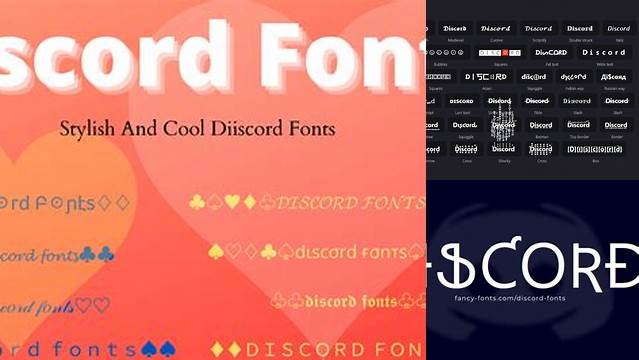
Discord Fonts: Cool Text Styles For Your Server
Hey guys! Ever wanted to spice up your Discord server with some unique fonts? You've come to the right place! Discord, while awesome, doesn't exactly give you a ton of built-in font options. But don't worry, there are plenty of ways to make your text stand out. Let’s dive into the world of Discord fonts and how you can use them to make your server truly shine.
1. Understanding Discord's Font Limitations
Discord’s native text formatting is pretty basic. You've got your bold, italics, underlines, and strikethroughs, which are super useful, but sometimes you just need that extra oomph. So, what are the limits? Discord uses a standard font across its platform, mainly for readability and consistency. This means you can't directly change the font in the traditional sense, like in a word processor. But, there’s a workaround – using Unicode characters and font generators!
When we talk about Discord fonts, we're really talking about text transformations that use special characters. These characters mimic different font styles, allowing you to create the illusion of various fonts without actually changing the underlying font Discord uses. This is where font generators come in handy. They take your regular text and convert it into these special character sets. Knowing this limitation is the first step in understanding how to make your Discord text pop. You’re not actually changing the system font, but you're getting creative with Unicode to achieve the desired effect. Think of it like a magic trick for your text!
2. Exploring Online Discord Font Generators
Alright, let's get to the fun part! Online Discord font generators are your best friends here. These tools are super easy to use. You just type in your text, and they generate a bunch of different font styles for you to copy and paste into Discord. Sites like LingoJam, Cool Fonts, and Text Generator are popular choices. They offer a wide array of styles, from bold and italic to bubble letters and fancy scripts. Each generator works a bit differently, but the core concept is the same: convert your plain text into stylized Unicode characters.
Using these generators is a breeze. You’ll usually see a text box where you can input your message. Below that, the generator will display your text in various Discord font styles. You can then simply copy the style you like and paste it directly into your Discord chat or server description. It's important to note that while these fonts look cool, they are essentially different characters, not actual font changes. This means they might not be supported everywhere, but within Discord, they generally work perfectly. So, go ahead and experiment with different generators and styles to find what suits your server's vibe!
3. Top Websites for Unique Discord Fonts
So, where do you find these magical font generators? There are tons of websites out there, but a few stand out for their variety and ease of use. LingoJam is a classic, offering a wide selection of fonts and a simple interface. Cool Fonts is another excellent option, with a user-friendly design and a bunch of unique styles. Text Generator is great for creating eye-catching text with various symbols and characters. These sites are your go-to resources for transforming your Discord fonts.
Each of these websites has its own strengths. LingoJam is known for its real-time conversion, showing you the Discord font in various styles as you type. Cool Fonts is praised for its clean layout and diverse font options. Text Generator excels at creating more elaborate text designs with symbols and decorative elements. It’s a good idea to try out a few of these sites to see which one you prefer. You might even bookmark a couple for different occasions! Remember, the key is to find a generator that offers the styles you love and is easy for you to use. Happy font hunting!
4. How to Use Font Generators for Discord
Okay, let's get down to the nitty-gritty. Using a Discord font generator is super simple, but here’s a step-by-step guide to make sure you nail it every time. First, head over to your chosen font generator website (like LingoJam, Cool Fonts, or Text Generator). You'll usually find a text box at the top of the page. Type the text you want to transform into this box. As you type, the generator will display your text in various font styles below.
Scroll through the options and find a Discord font style that catches your eye. Once you’ve found the perfect style, simply click the “copy” button next to it (if there is one) or manually select and copy the text. Now, head over to Discord and paste the text into your desired chat, channel, or server description. That’s it! Your stylish new font will now be visible to everyone. Remember to test how the font looks in Discord before sending a long message, just to make sure it displays correctly. And don’t be afraid to experiment with different fonts and generators to find your favorites!
5. Creating Bold Text in Discord
Discord has built-in formatting options, and bolding text is one of the easiest ways to emphasize your messages. To make your text bold, simply add two asterisks (**) before and after the text you want to bold. For example, this text will be bold. This is a simple yet effective way to highlight important information, commands, or key points in your messages. Bolding text can make your announcements stand out and grab attention in a busy chat.
Test your fonts on both desktop and mobile devices to ensure they display correctly for all users. Be mindful of accessibility and choose fonts that are inclusive to users with visual impairments or reading difficulties. Avoid overusing stylized fonts, as too much variety can be visually overwhelming. Finally, consider your server's theme and choose fonts that align with its personality. By following these best practices, you can use fonts effectively to enhance communication and create a thriving Discord community.